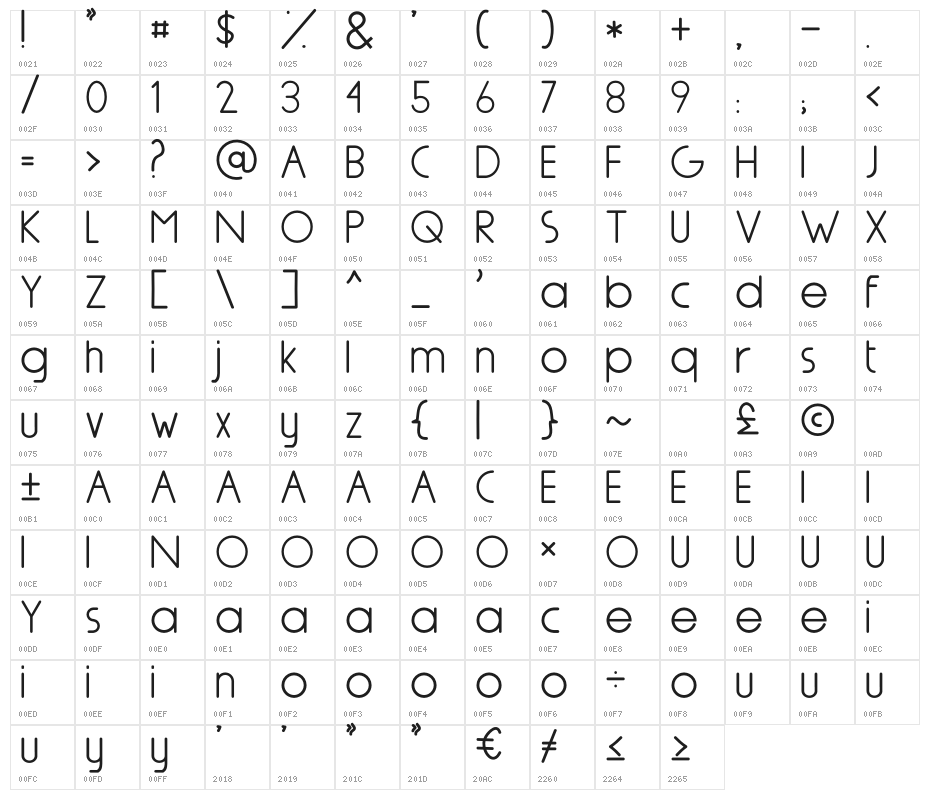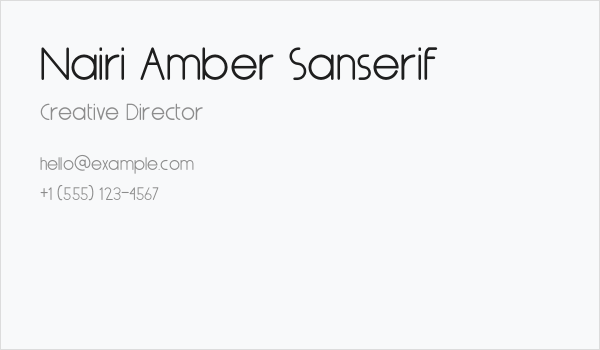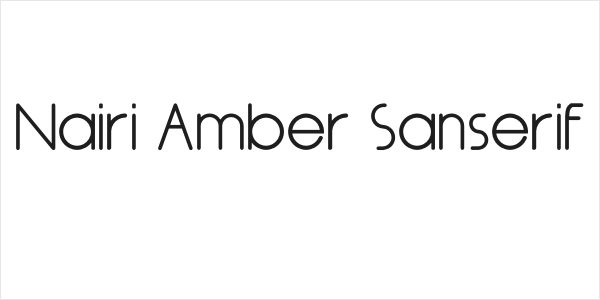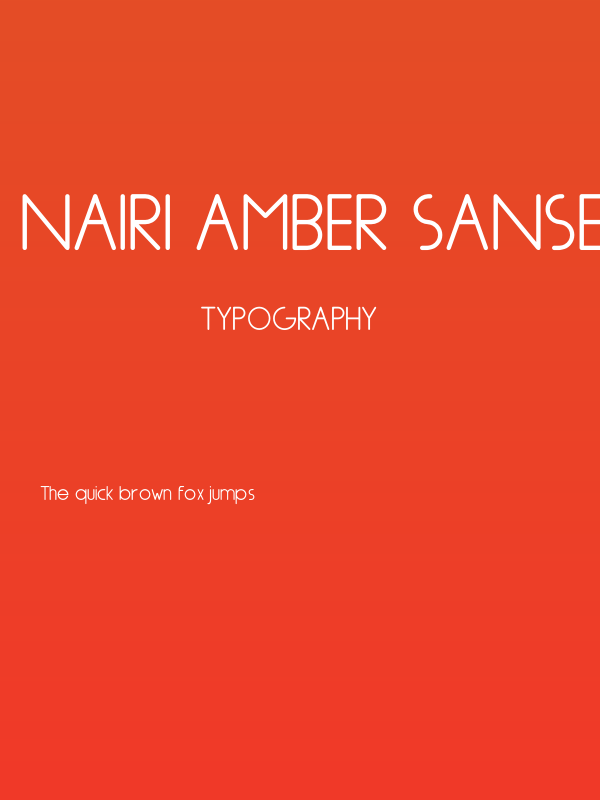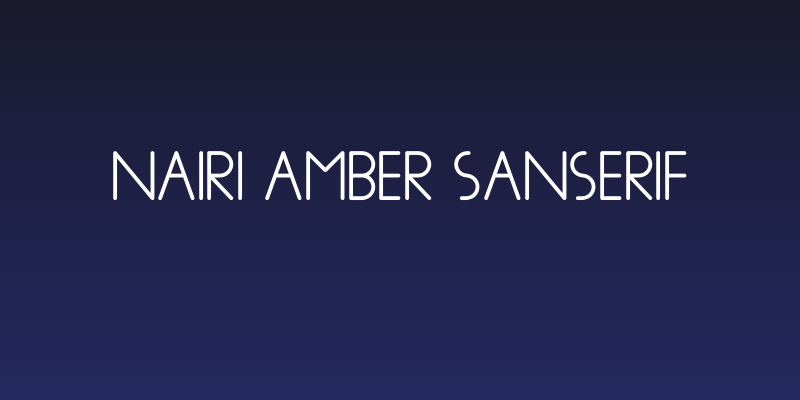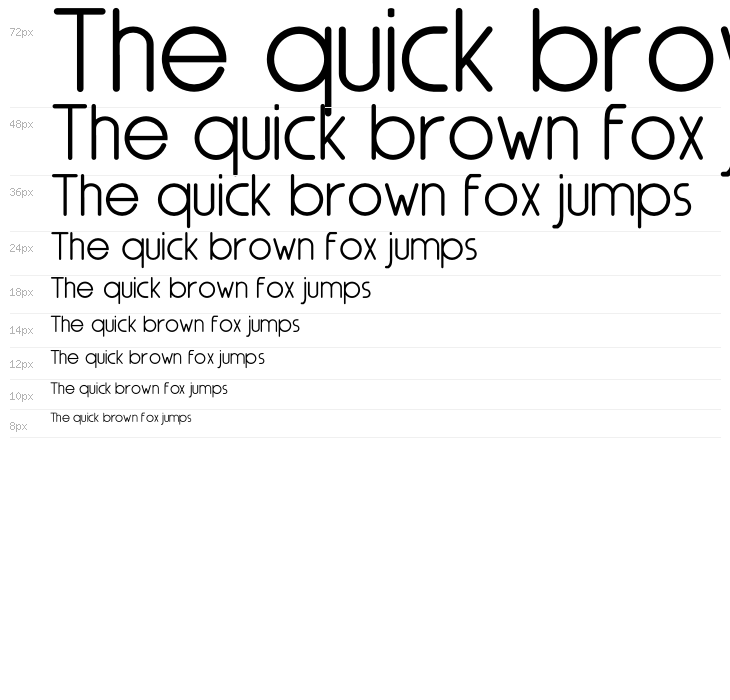
Nairi Amber Sanserif Font
Nairi Amber Sanserif Description
This font exhibits a clean and modern sans-serif style, characterized by its smooth curves and uniform stroke width. The uppercase and lowercase letters maintain a consistent geometric form, providing a harmonious and balanced appearance. The numerals are clear and legible, with a similar rounded structure that complements the alphabetic characters. Special characters are well-integrated, maintaining the overall aesthetic of simplicity and elegance. This font is versatile, suitable for various design applications where clarity and modernity are desired.
| Proposed Projects | Ideal for branding, advertising, web design, and editorial projects where a modern and clean look is essential. |